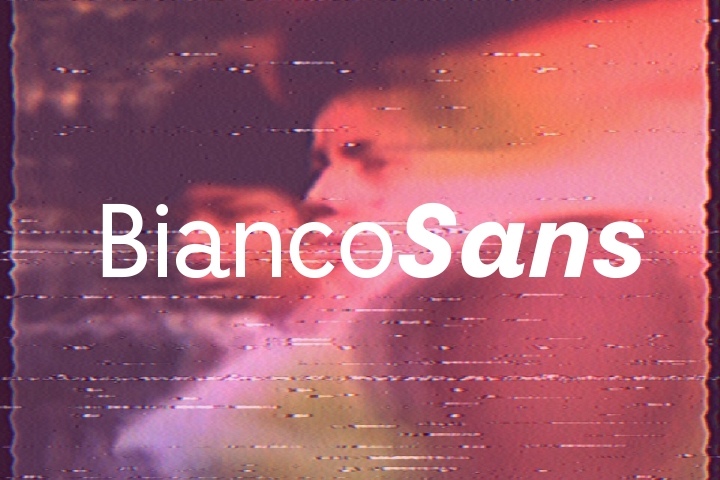
Bianco Sans Font
Bianco Sans Font is perfect for minimalist brand identities, clean architecture signage, modern art gallery materials, luxury skincare packaging, contemporary fashion labels, sleek tech interfaces, sophisticated web design, premium healthcare branding, pure lifestyle publications, and refined corporate communications.
What makes Bianco Sans Font so exciting is its exceptional ability to embody pure minimalism and pristine clarity through letterforms that seem to radiate cleanliness, sophistication, and timeless elegance with every character. This pristine typeface captures the essence of refined simplicity and contemporary purity with characters that communicate both professional authority and serene clarity. The font's clean design elements perfectly balance minimalist aesthetics with maximum functionality, creating an indispensable tool that communicates purity, sophistication, and modern luxury, making it essential for brands that understand the power of refined simplicity and the elegant beauty found in perfect clarity and uncompromising quality.
Bianco Sans Font comes in multiple font families including Regular, Bold, Light, Italic, Bold Italic, Ultra Light, Medium, and Pure variations. Each family member maintains the core minimalist characteristics while offering different clarity levels and stylistic approaches to suit various contemporary design requirements.
The pristine precision in Bianco Sans Font makes it particularly effective for luxury brands and contemporary organizations where conveying pure quality and sophisticated simplicity is crucial for connecting with audiences who appreciate authentic luxury through refined minimalism rather than ornate complexity. Its clean letterforms work exceptionally well across all modern applications, from digital interfaces to luxury packaging, maintaining consistent visual purity and sophisticated appeal.
Luxury design professionals recognize how Bianco Sans Font transforms ordinary communications into pristine statements of contemporary luxury and sophisticated minimalism. The typeface's pure character set includes comprehensive international language support and advanced typographic features that accommodate complex luxury branding requirements and global minimalist design applications.
For creative professionals serving luxury brands, contemporary architecture, and sophisticated minimalist companies, Bianco Sans Font serves as the perfect foundation for establishing memorable visual identities that capture the essential qualities of pure elegance, sophisticated simplicity, and contemporary luxury that define successful brands understanding that true luxury lies in perfect clarity and uncompromising refinement.